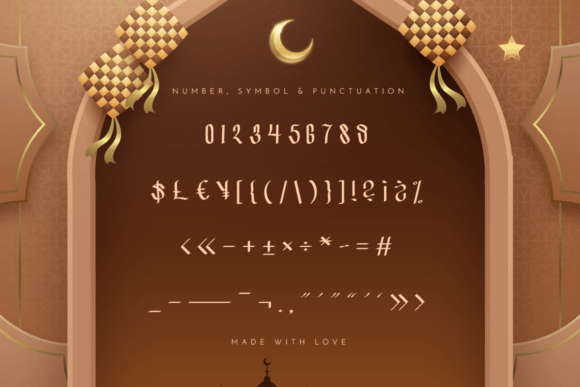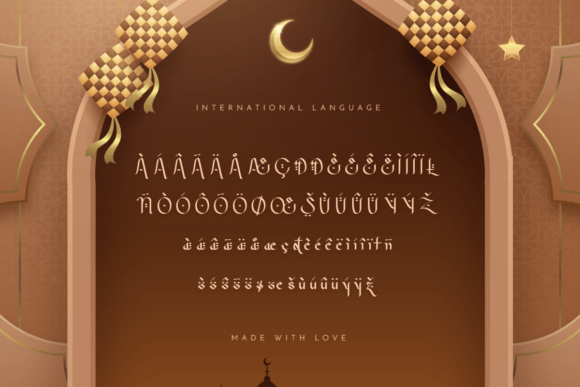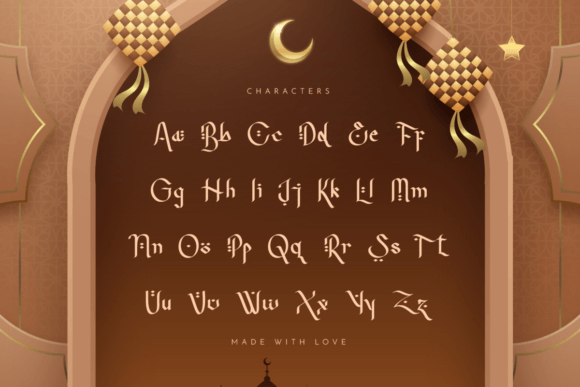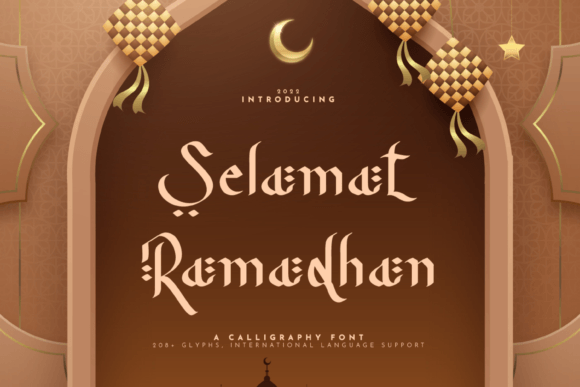
Introduction to Selamat Ramadhan Font
Selamat Ramadhan Calligraphy Introducing a fresh and new handwritten font, “Selamat Ramadhan”.
Made in Indonesia, “Selamat Ramadhan” is inspired by the biggest month for Moslems, Ramadhan Month This font was designed especially for Ramadhan project purposes, including posters, social media, and cards.